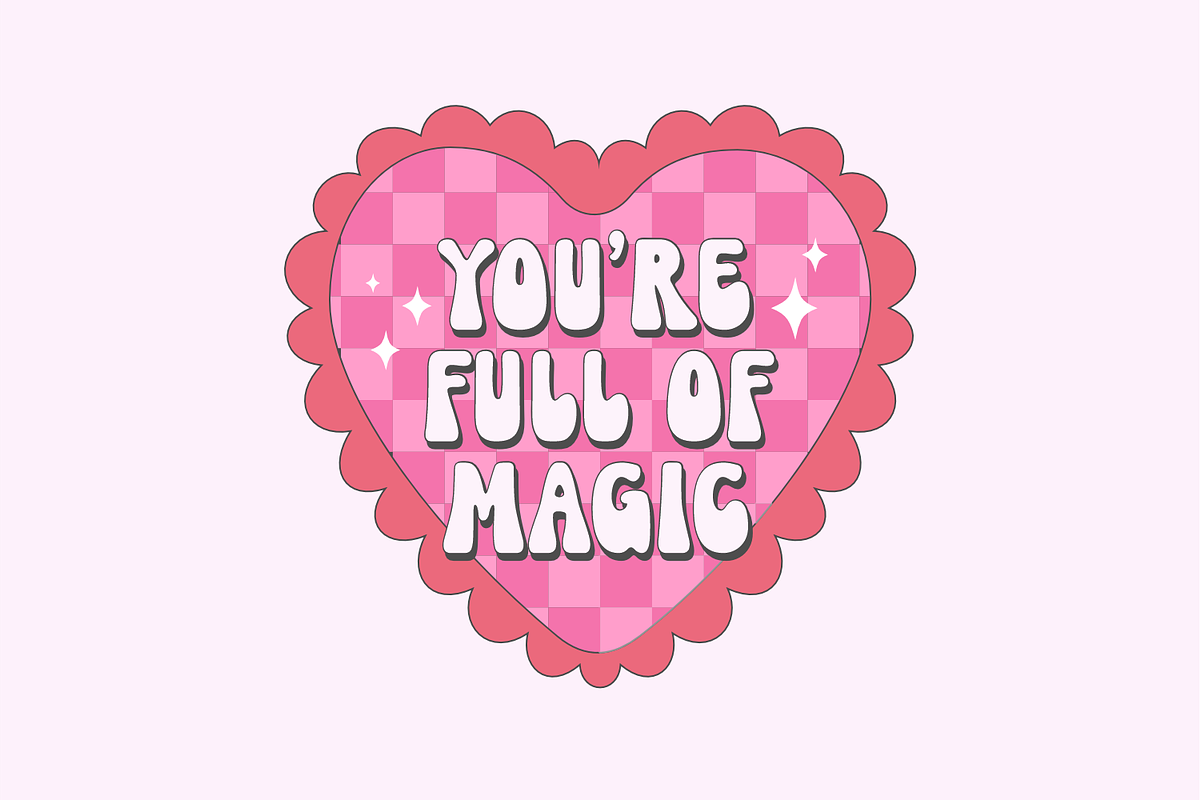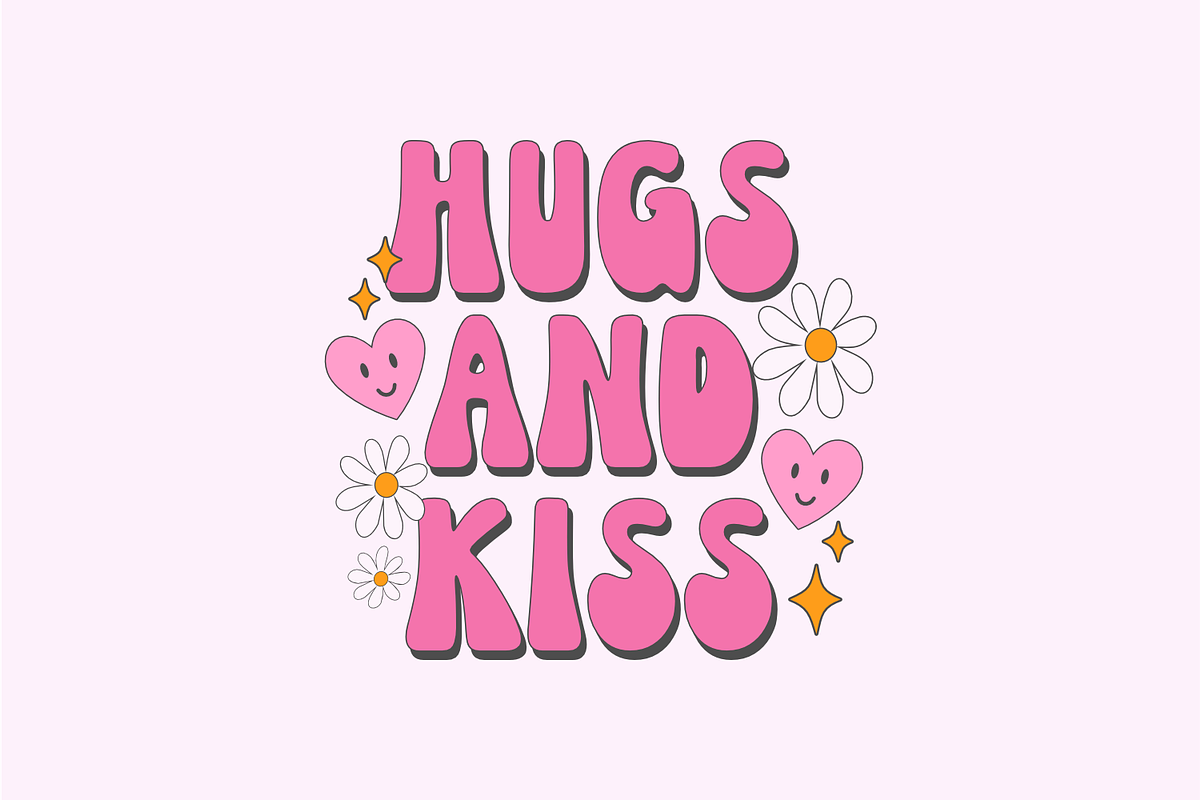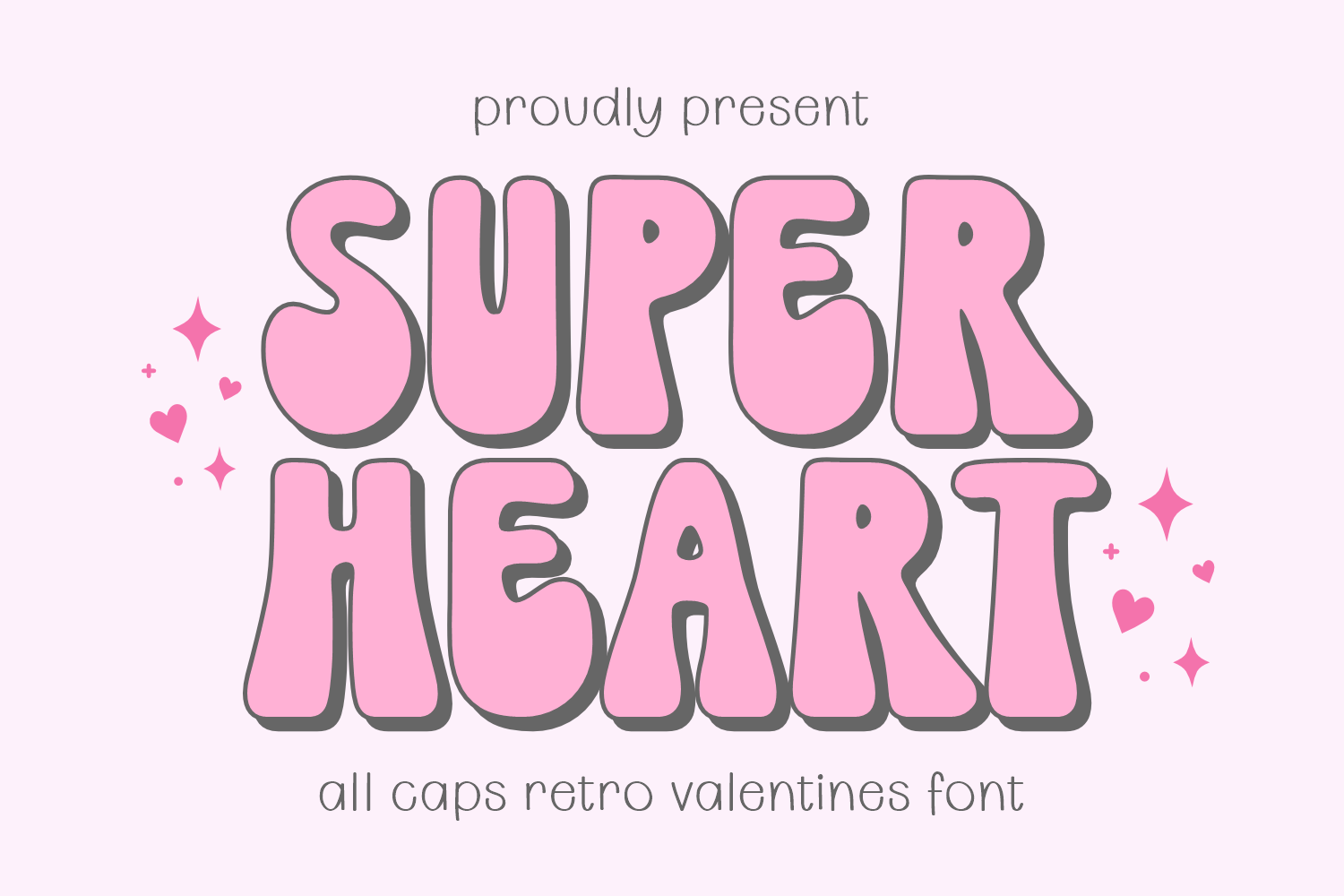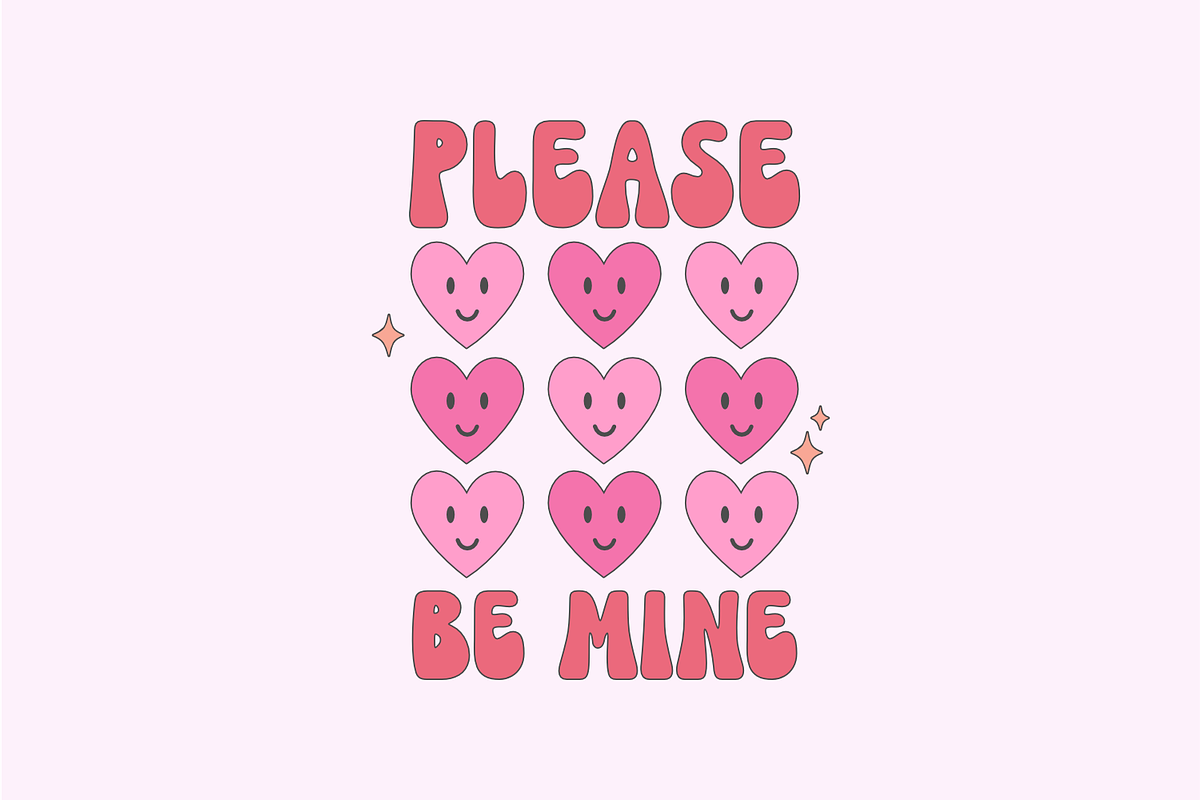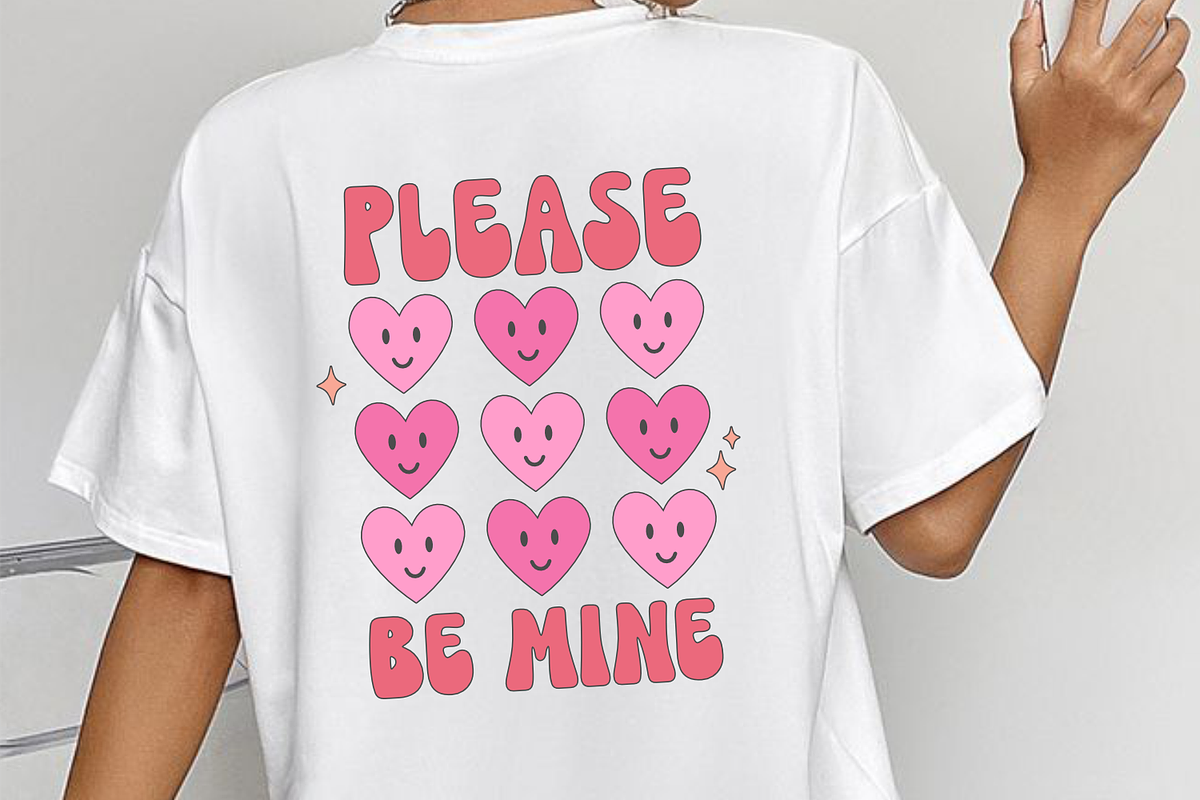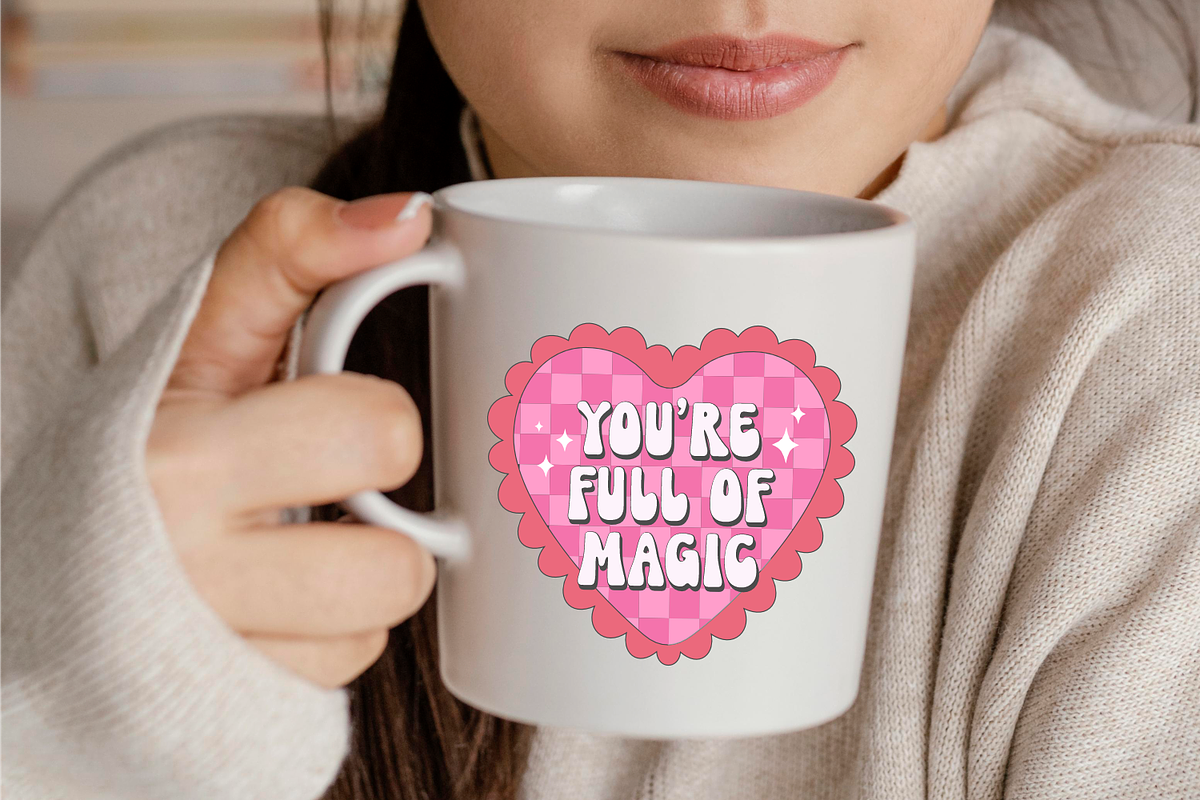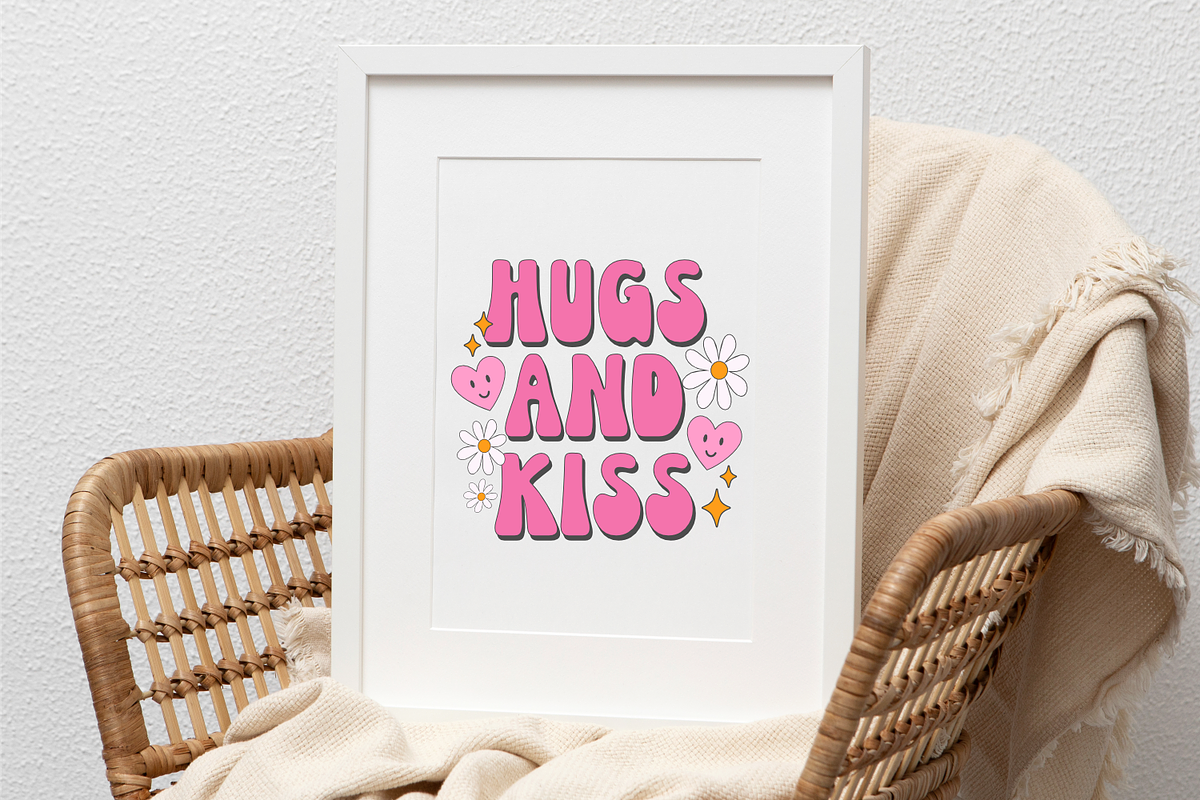
Super Heart - Valentines Font
Super Heart, a unique retro Valentine’s font, resonates with a vibrant, hippie-chic aura. Its imaginative letterforms offer a nostalgic nod to vintage Valentine’s motifs and the alluring psychedelic era. The intentional mismatch of thick and thin strokes injects a distinct handmade touch, providing an organic aesthetic. Super Heart is the perfect choice for designs intended to embody a laid-back and joy-filled attitude, enabling your projects to truly come alive with fun and unconcerned energy.